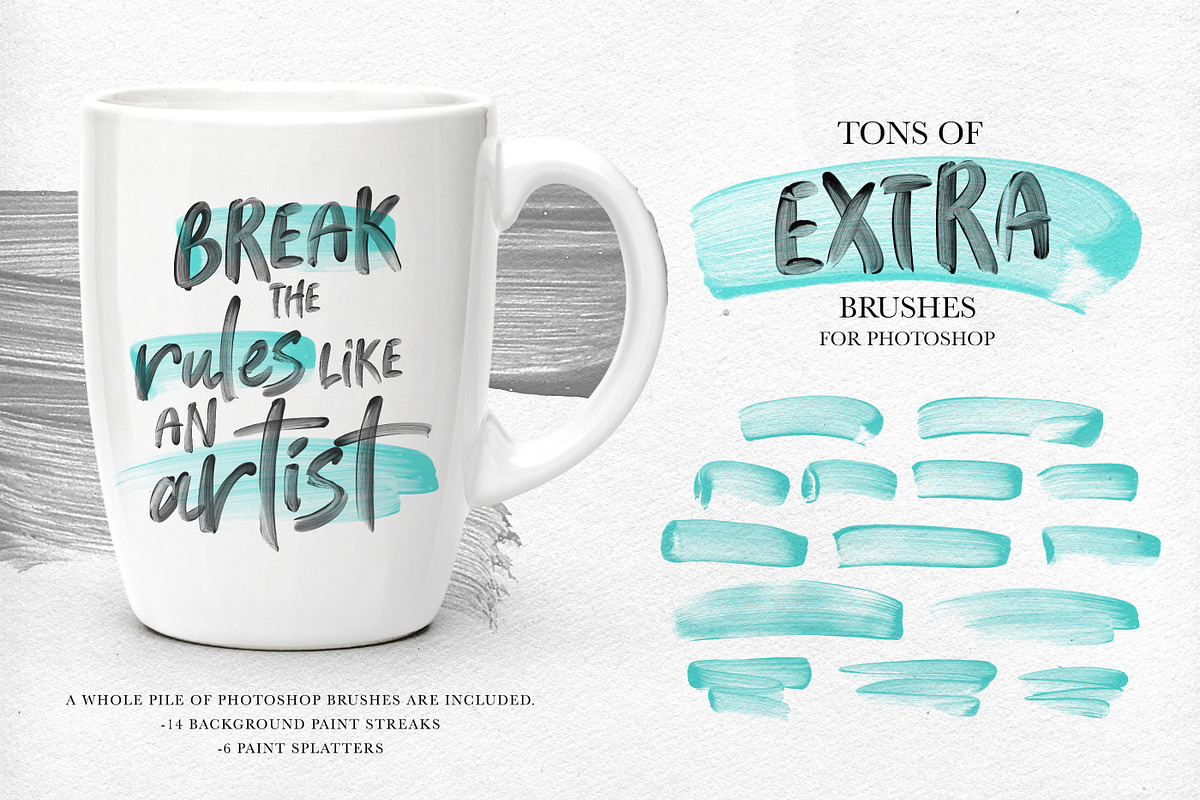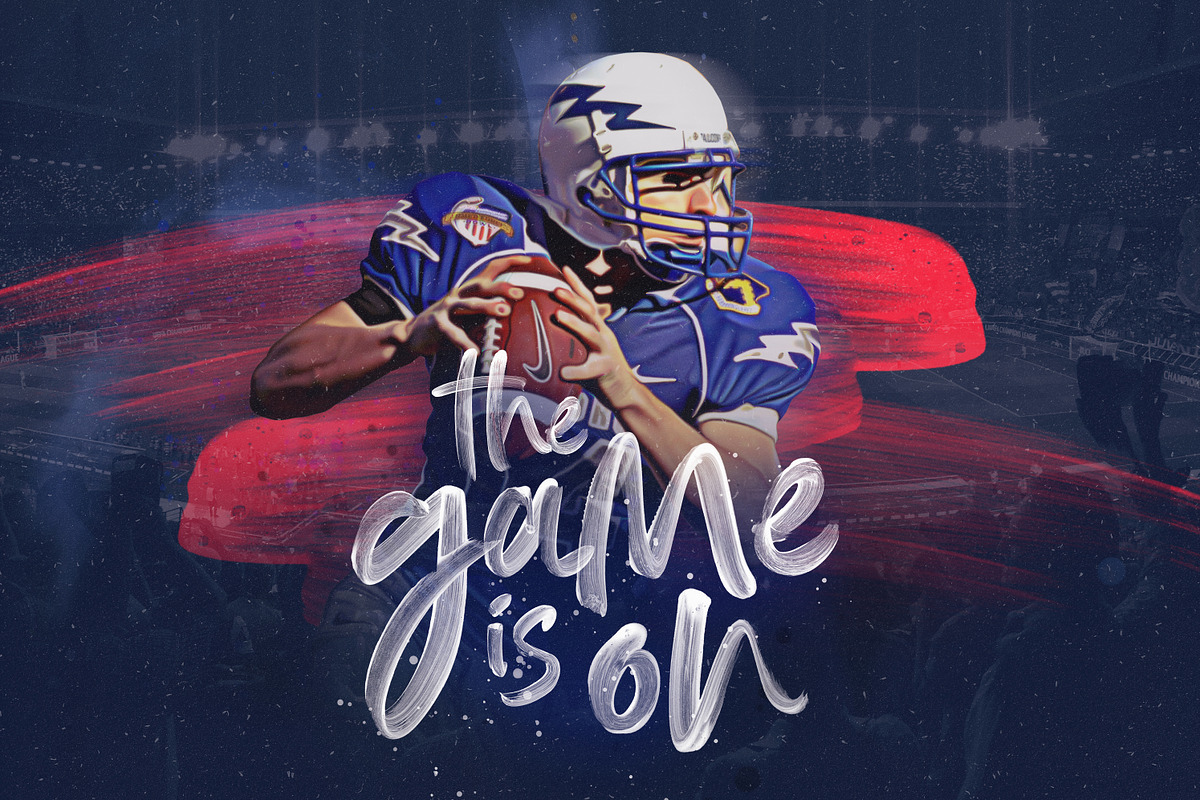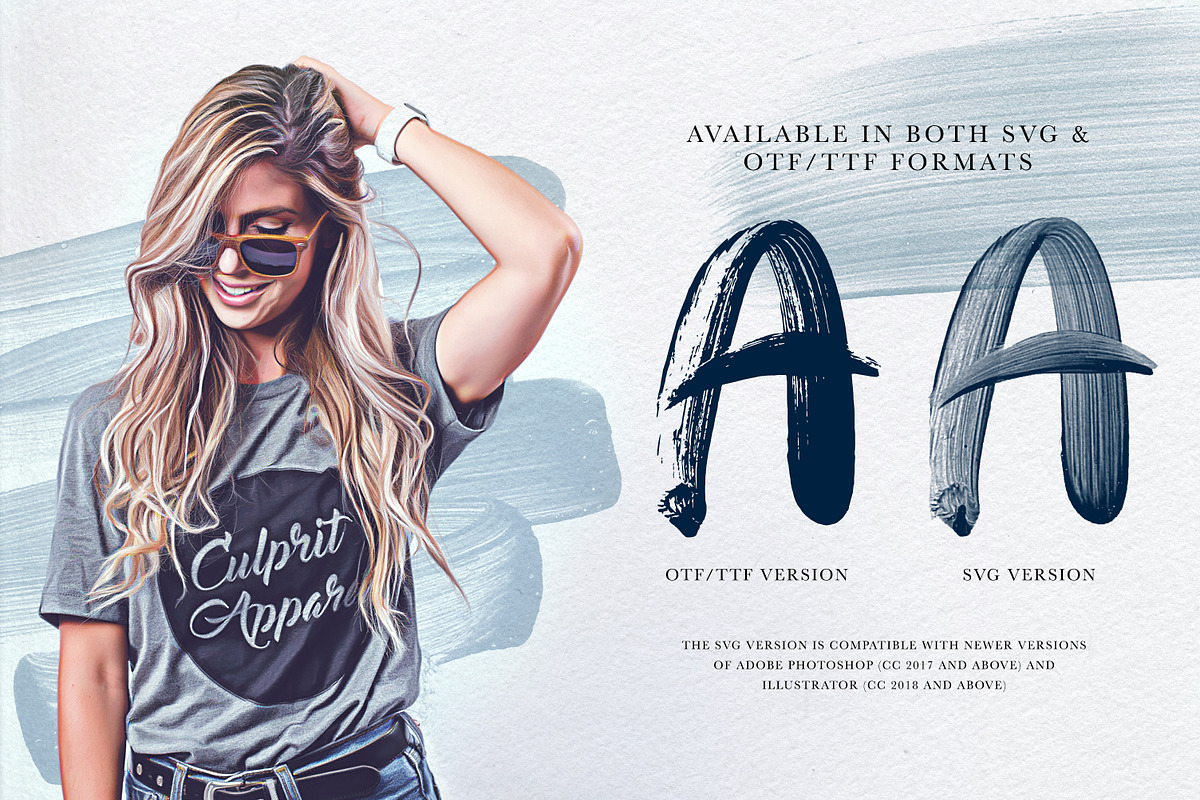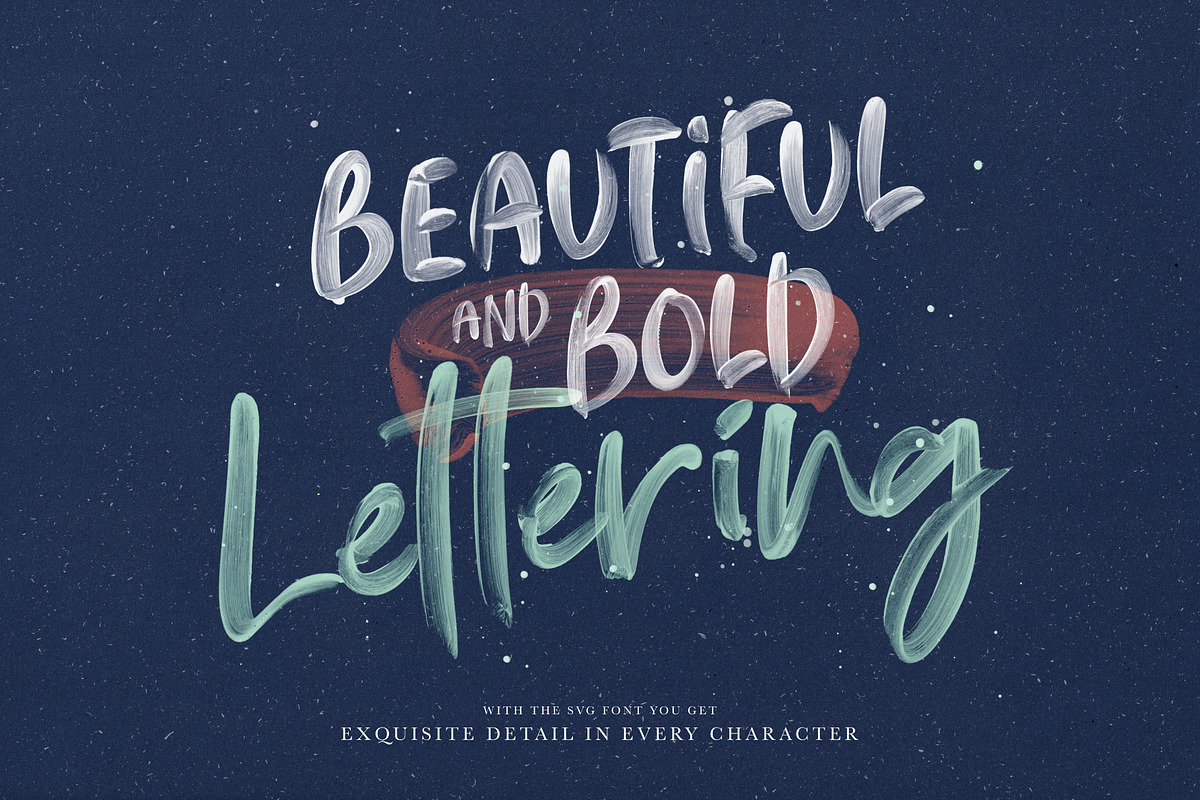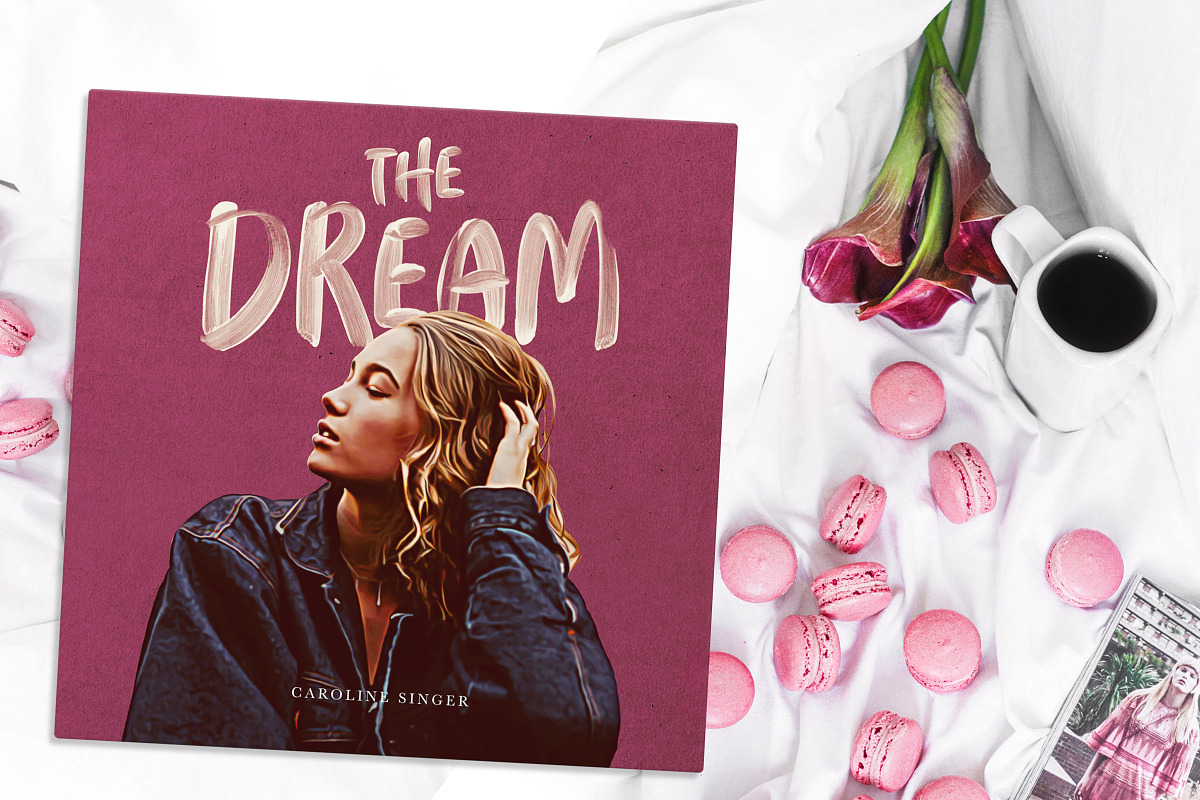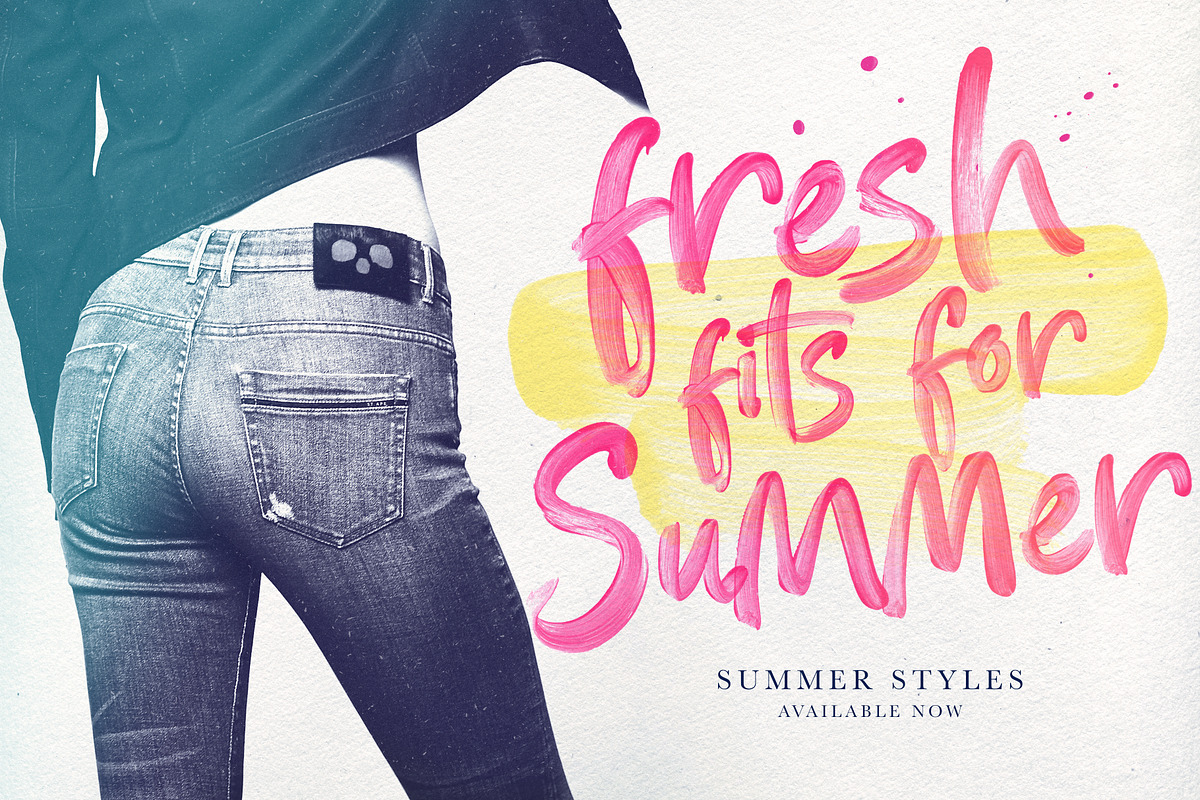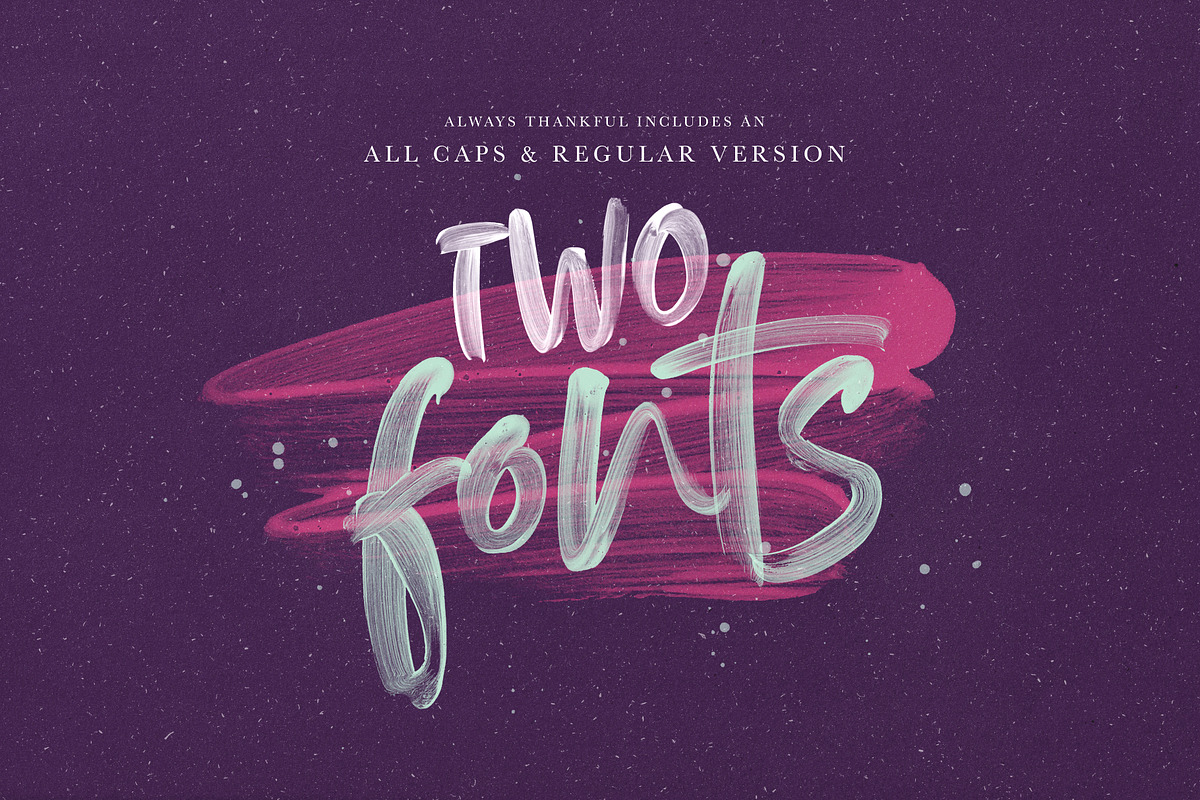
Always Thankful - SVG Font Duo
Always Thankful is an hand painted font pack containing two Opentype SVG fonts. These Opentype SVG fonts keep all of the transparency and texture of the original painted letters. Always Thankful will make your design projects burst with character and charm, and will make your design projects a breeze. Each letter and symbol was hand painted, and I probably went through over 300 pages of painted letters to get the perfect letter combinations down.
Always Thankful - Regular Version - This font contains tons of glyphs and language support. Each lowercase letter also has an alternate version, so that you can mix things up a little bit to your liking. All the symbols and punctuation glyphs are there as well.
Always Thankful - Caps Version - This font contains different capital letters using both lower and uppercase characters, so that you have alternates for each letter. There is a ton of language support, as well as full symbols and punctuation.